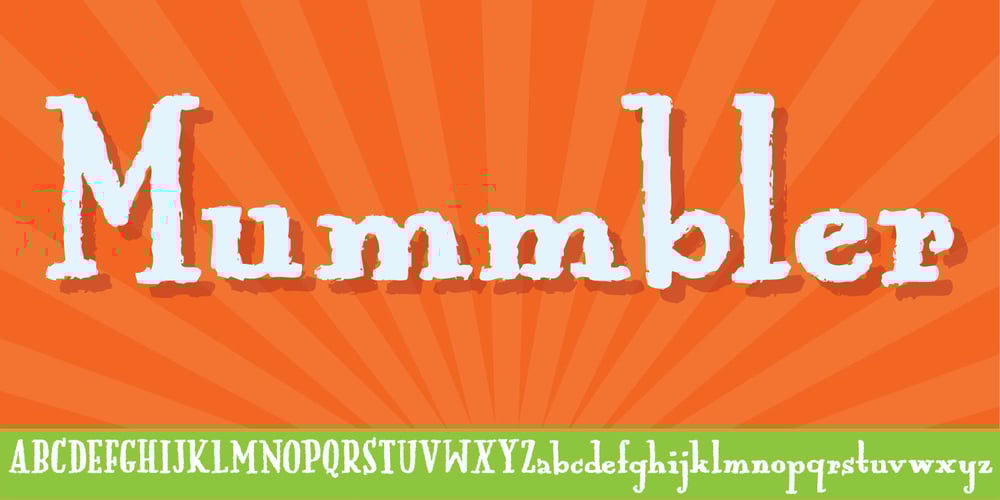
Mummbler Font Family was designed by Jakob Fischer and published by PizzaDude.dk. Mummbler contains 1 styles and family package options. Mummbler is your tiny, crunchy and lovely serif font with tall ascenders and deep descenders. Romantic, perhaps – but definately worth your next print project!